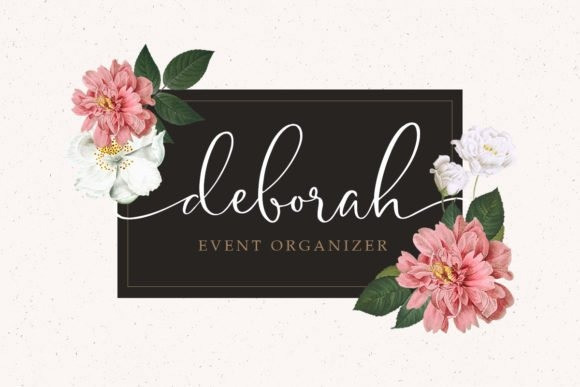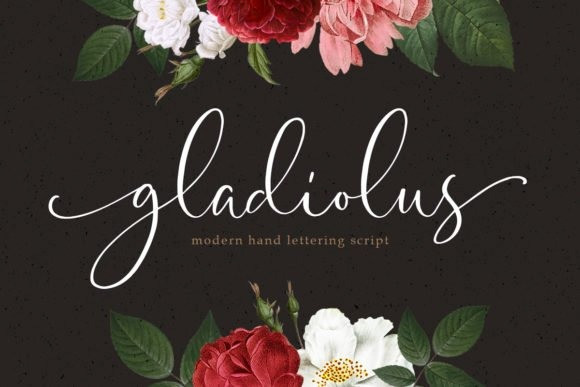
Matlagih Script Font
Hello! Give your designs an authentic handwriting feel. “Matlagih Handcrafted Script Font” is perfectly suited to stationery, logos, branding, poster, wedding and much more.